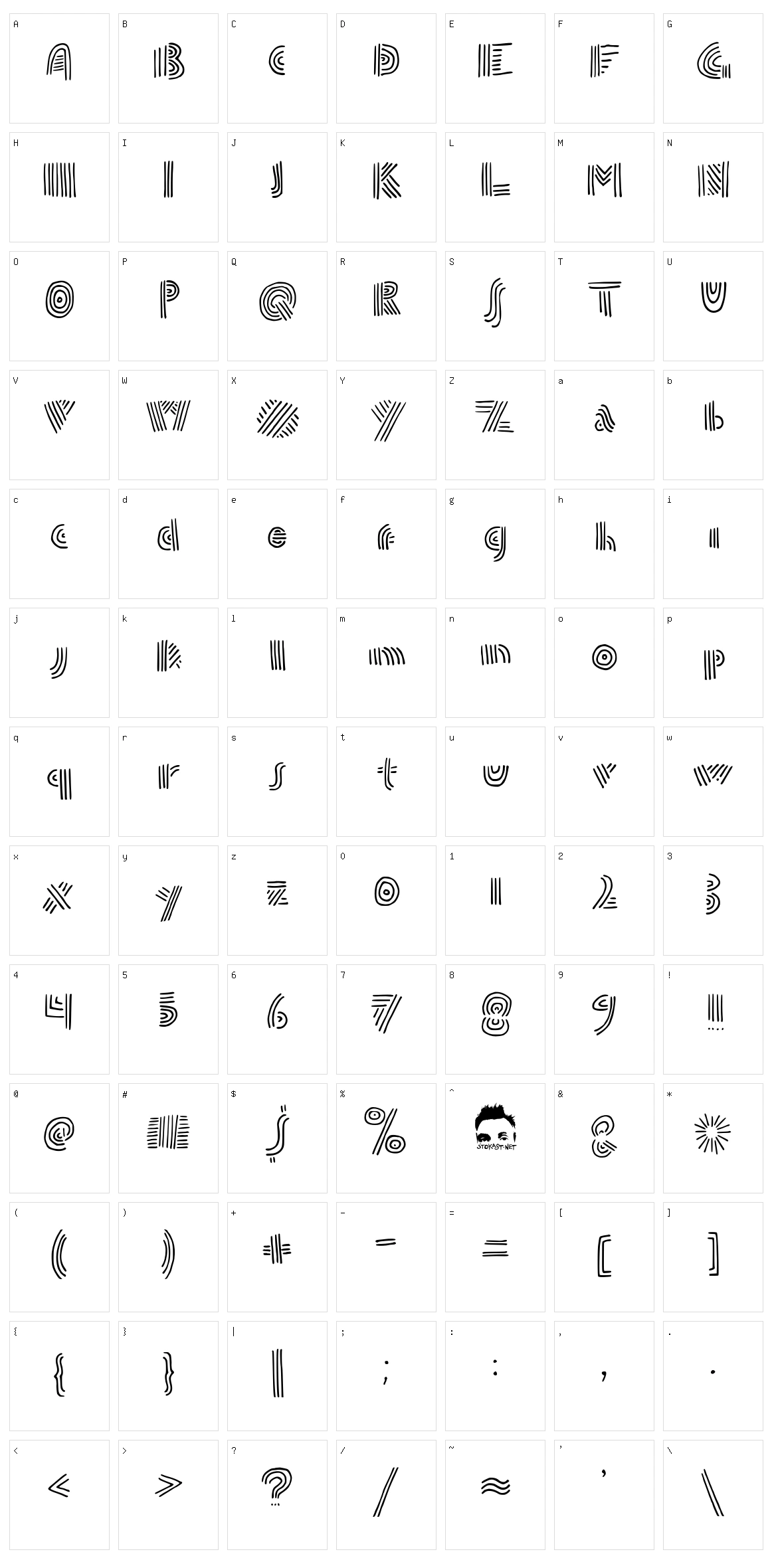
The free font Doublespeak is carefully designed by Elling Lien, showcasing a thoughtful balance of creativity and usability and falls under the Groovy font style. When you download the ZIP file, it contains only 42.87 KB of font files, making it lightweight and quick to download. Please review the license details below to understand permitted usage and distribution rights. If license information is not available, we recommend using this font for personal projects only or contacting the author directly for commercial usage permissions.